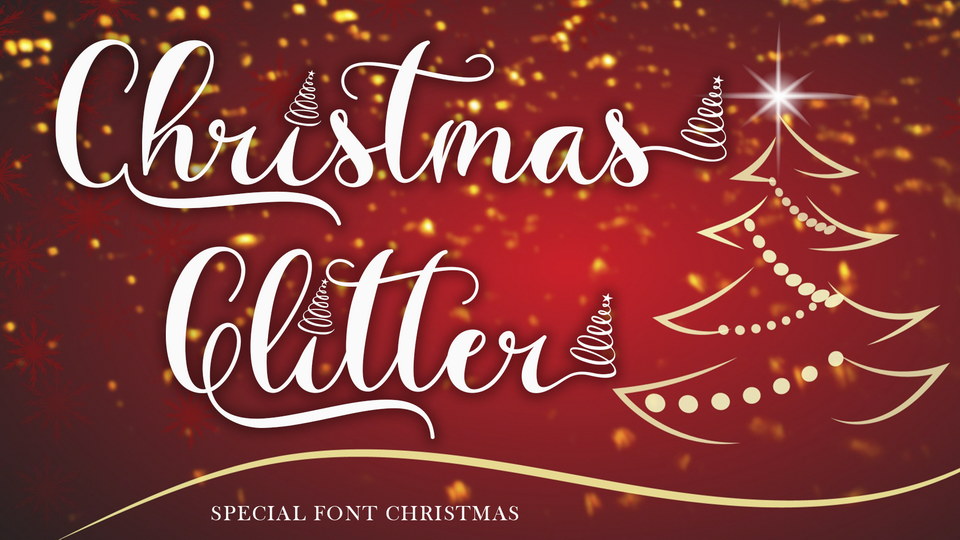
Download Christmas Glitter font, a lovely and delicate script typeface that exudes elegance and class. Christmas Glitter font was particularly crafted for those who need a beautiful and refreshing look to their designs.